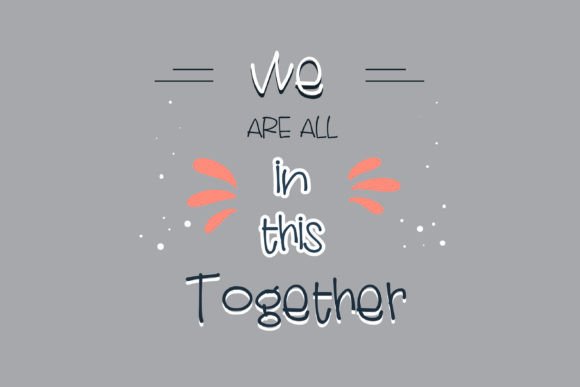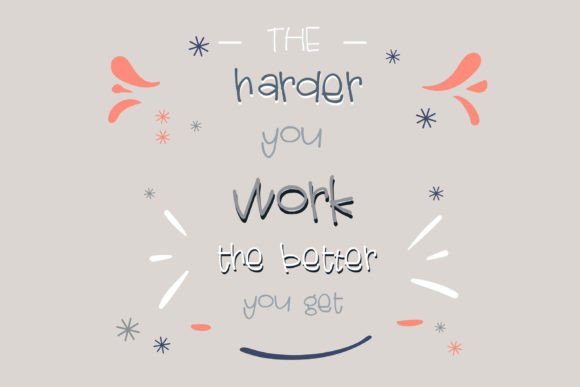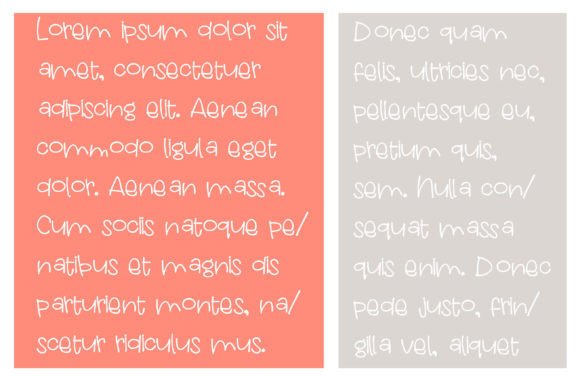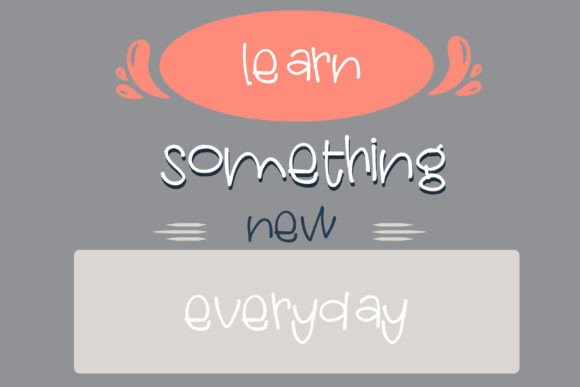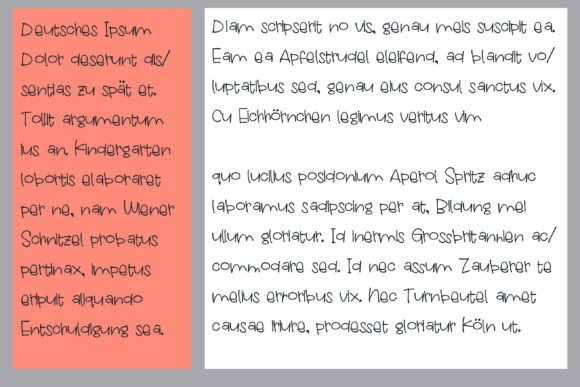
**Troubleshoot** is a fun and youthful handwritten font that has been masterfully designed to become a beloved favorite among designers and creators. This font possesses the potential to elevate each of your creative ideas to new heights of fun and playfulness, thanks to its distinctive and youthful style.
One of the standout features of Troubleshoot is its fun and playful design, characterized by whimsical letterforms and a carefree aesthetic. Each letter is meticulously crafted to convey a sense of joy and lightheartedness, making this font an excellent choice for projects where you want to create a visually striking and fun impression.
Troubleshoot’s versatility is a significant asset. It can be used for crafting posters, children’s book illustrations, greeting cards, educational materials, social media graphics, and any creative endeavor that calls for a fun and youthful font. Its playful and youthful appearance ensures that your work is engaging and filled with character.
For posters and children’s book illustrations, Troubleshoot adds a touch of whimsy and joy, making your designs charming and relatable to young audiences.
In greeting cards and social media graphics, this font infuses a sense of fun and playfulness, fostering a positive connection with your audience.
Troubleshoot’s fun and youthful style make it a fantastic choice for infusing your designs with a sense of joy and lightheartedness. Whether you’re crafting posters, creating children’s book illustrations, or designing greeting cards, Troubleshoot can be your go-to font for adding a playful and youthful vibe that brightens your creative work.